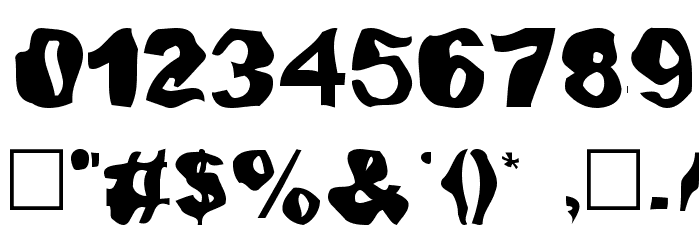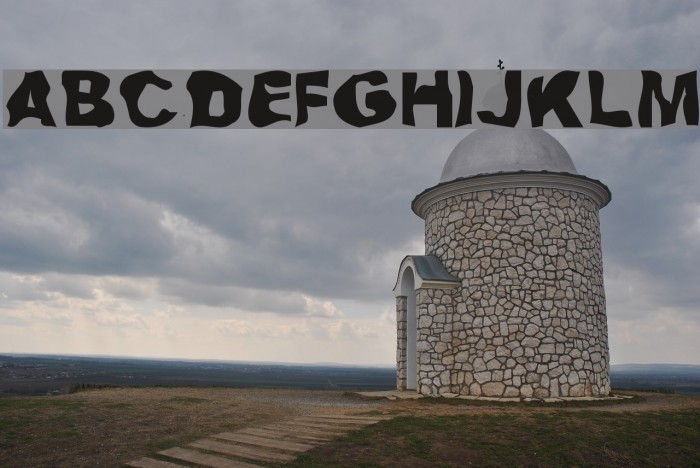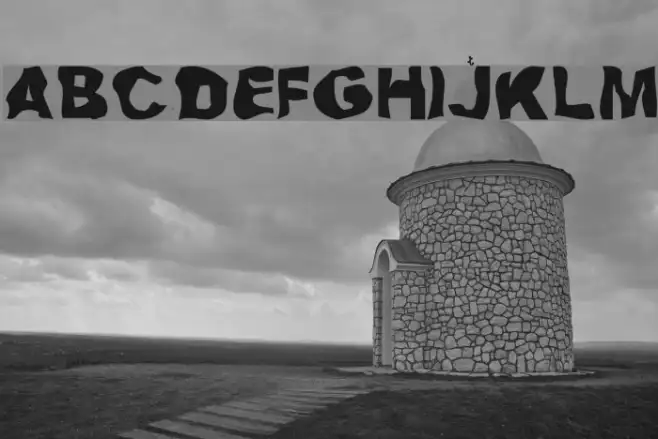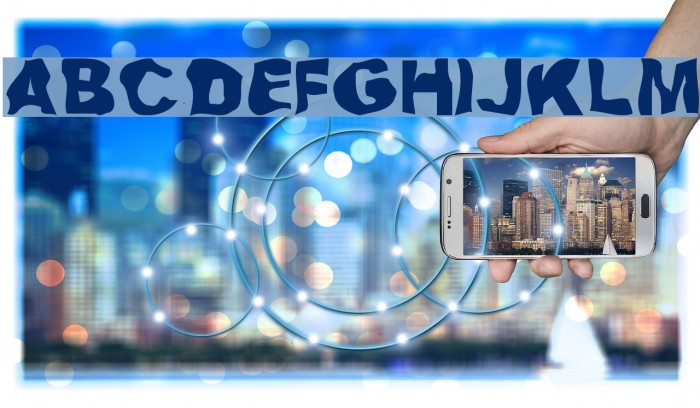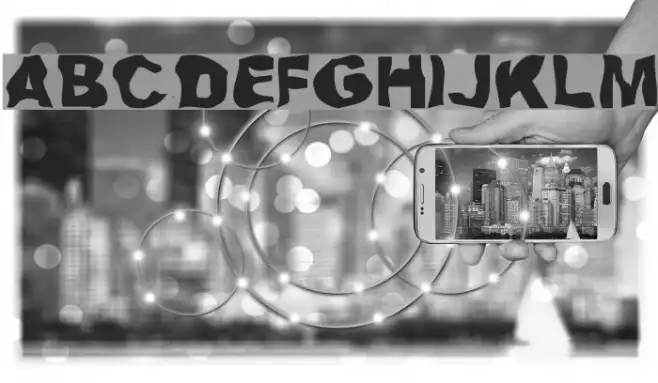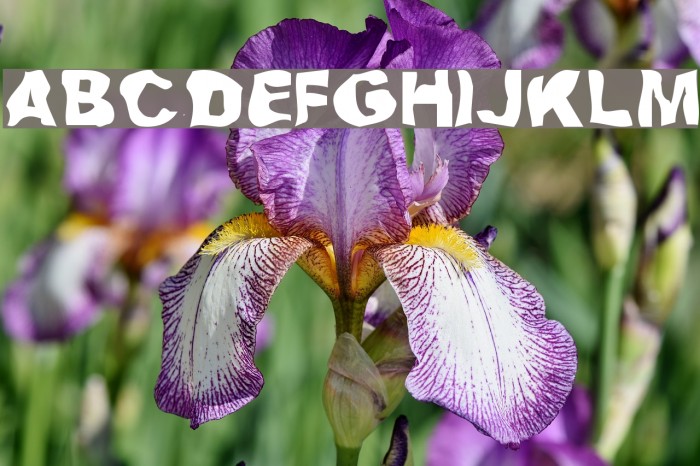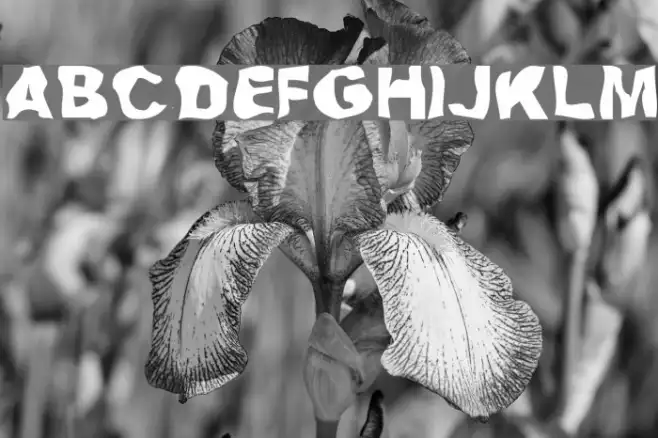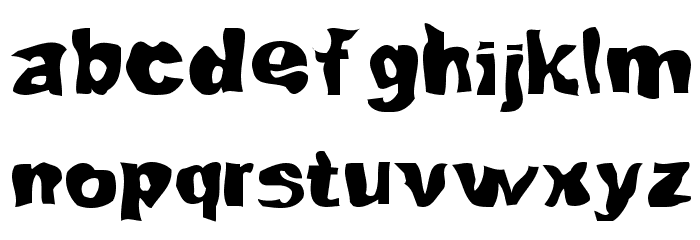
Lou Font
Lou Description
This font features a bold and playful style with a hand-drawn appearance. The characters have irregular edges and varying stroke thickness, giving them a dynamic and energetic feel. The uppercase and lowercase letters maintain a consistent style, with a slightly whimsical touch. Numbers and special characters follow the same playful design, making the font suitable for creative and informal projects. The overall look is eye-catching and unique, perfect for adding a fun and lively element to any design.
| Overall Style | Playful, Whimsical, Hand-drawn |
| Proposed Projects | Ideal for children's books, playful branding, party invitations, and creative posters. |